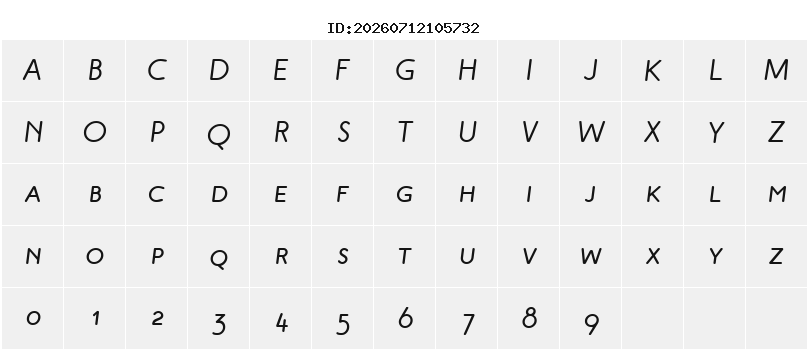
Malvern SC.ttf is a modern, elegant sans-serif font designed for ultimate readability and visual harmony. Perfect for branding, headlines, web design, and print materials.